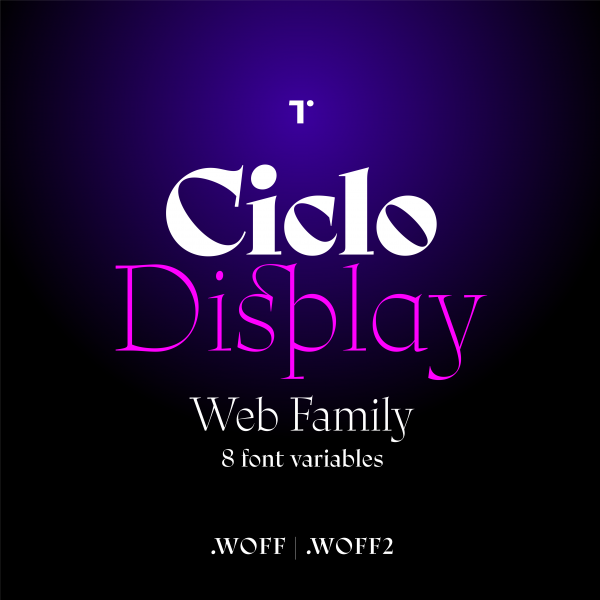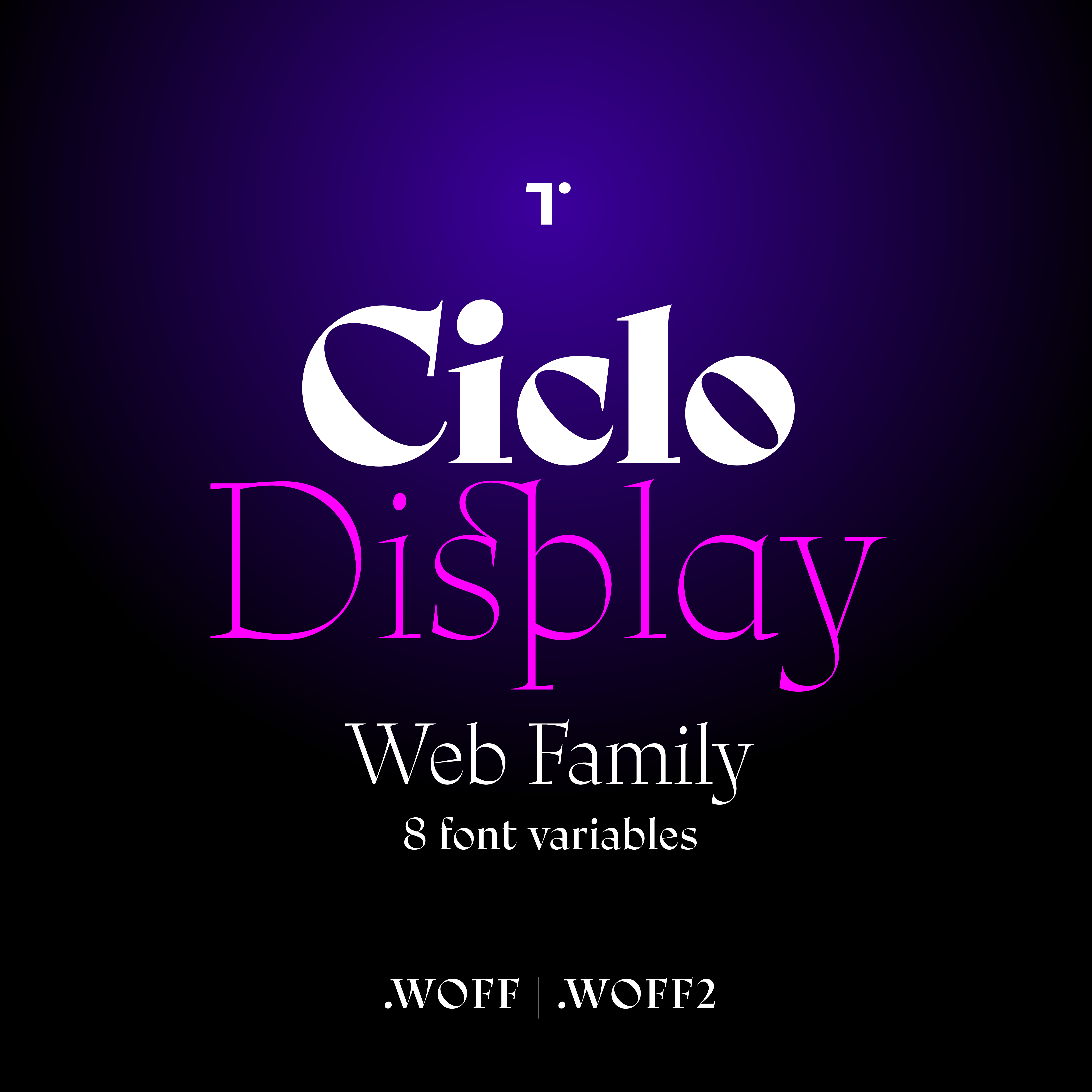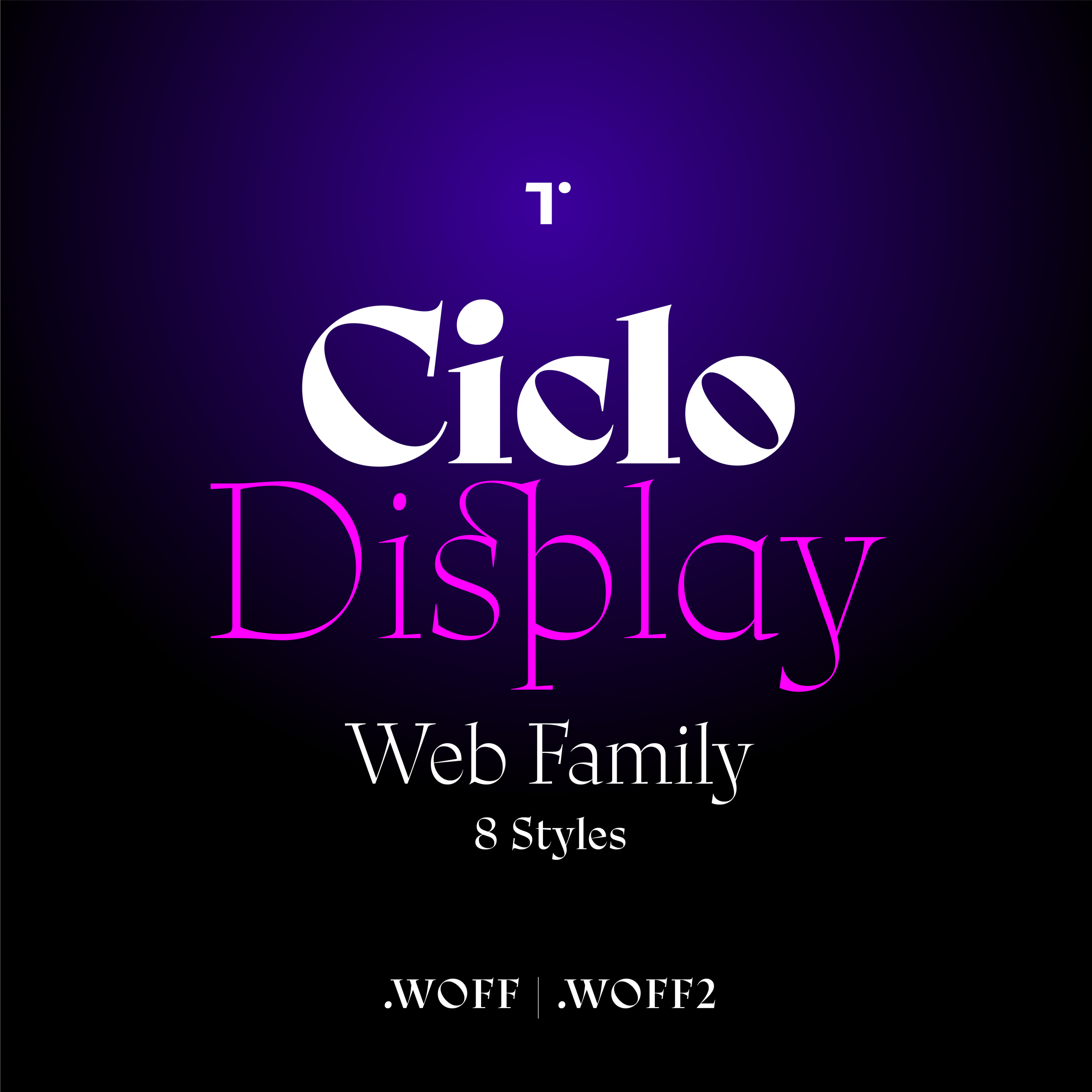
Ciclo Display Web
Ciclo Display Roman is part of our ongoing fonts, which will be part of a new type system. It is designed somewhat inspired by Bernhard Modern with very high contrast and a dramatically slanted axis. We are completing the planned set: e.g. Fractions, Alternates, maybe some Ligatures, Miscellaneous, and of course, Italics. We have released this 0.1 version in order to fund the development of the project while offering a super special price for early buyers, who will be able to access future updates at no cost.